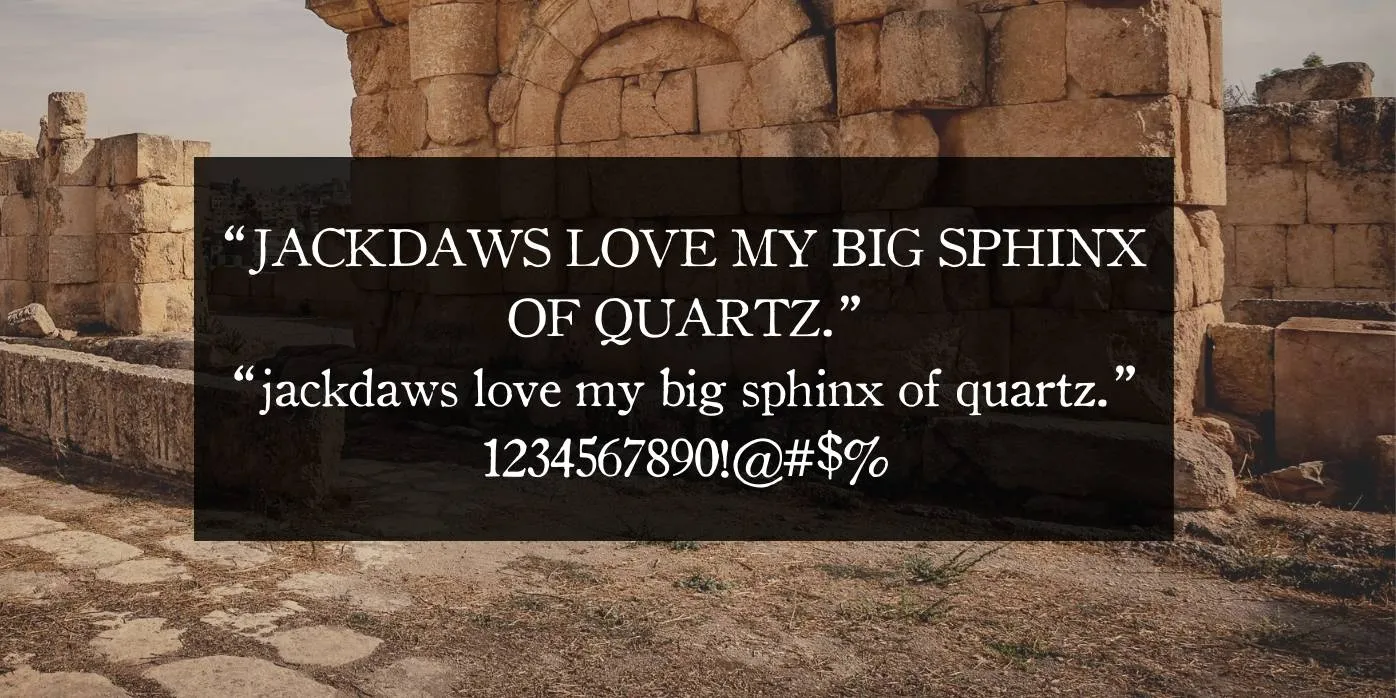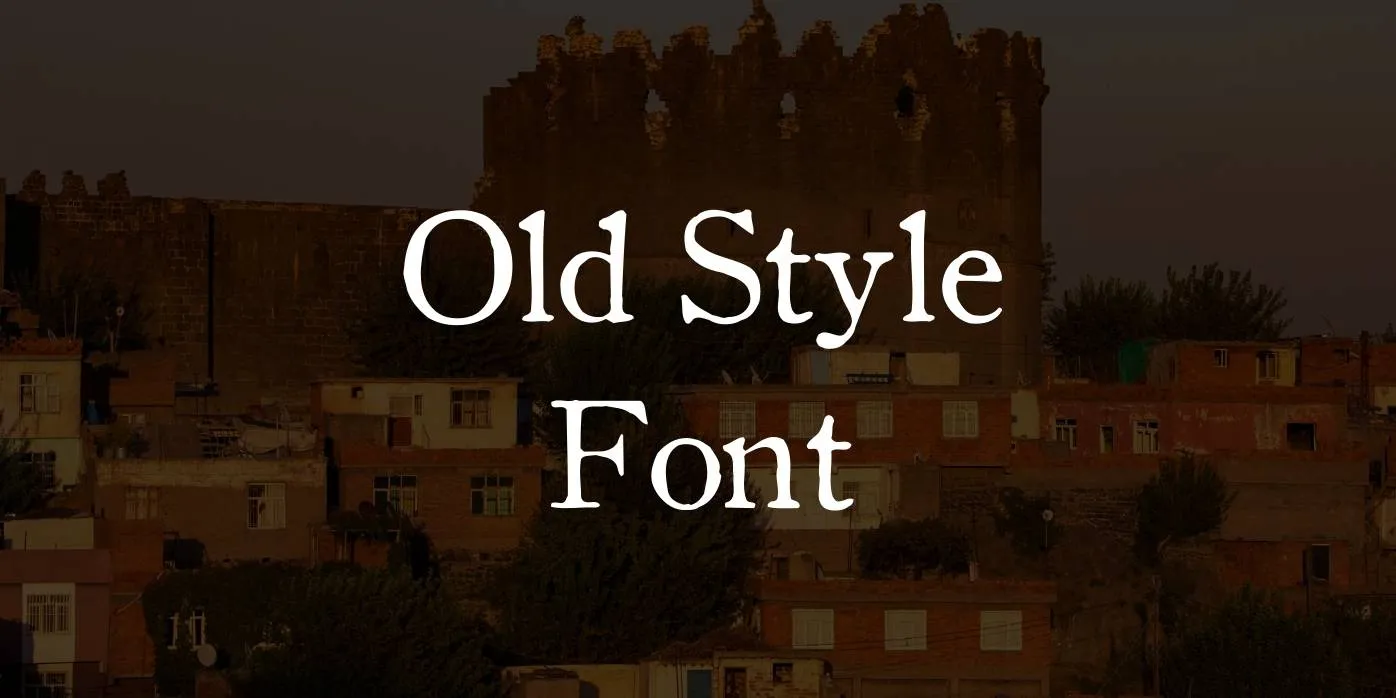
Old Style Font
Old Style Font belongs to the serif font family. This typeface was developed by HPLHS Prop Fonts. The most notable characteristic of this font is its small x-height. This makes the font appear to be slightly condensed.
The main goal of this typeface is to create a more antique feel. It is perfect for headlines, logos, branding, and more. The Sonic Font family includes 3 different weights – Light, Regular, and Black. This typeface is not included in google fonts.